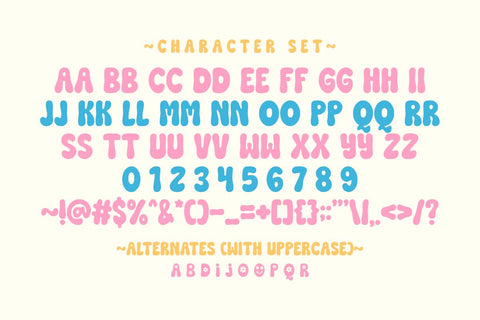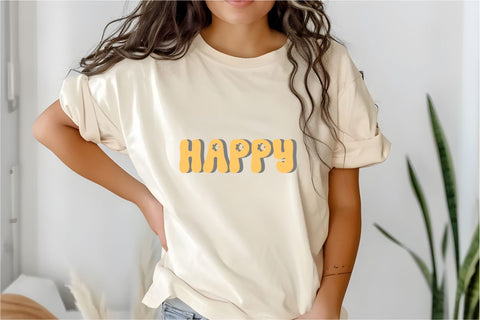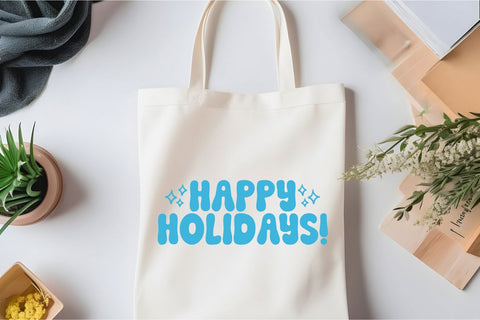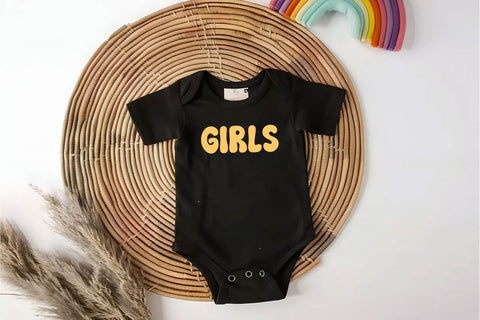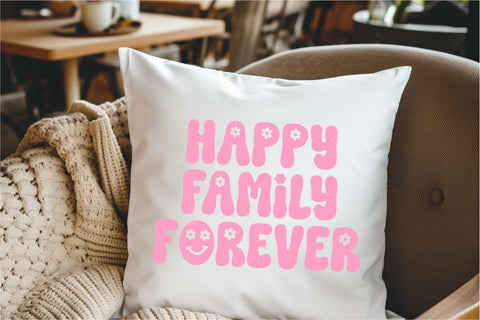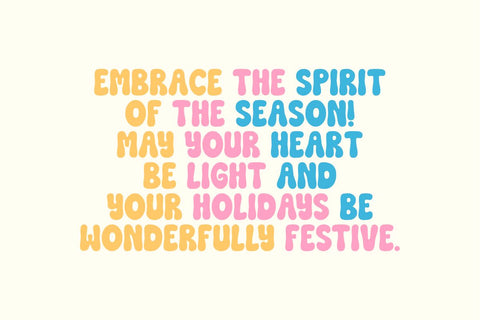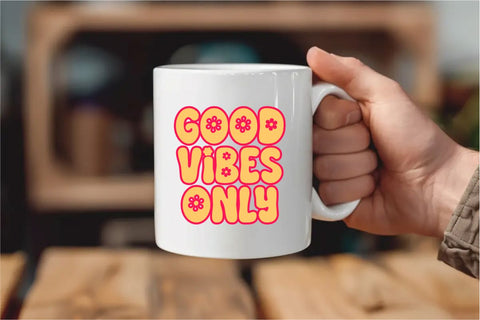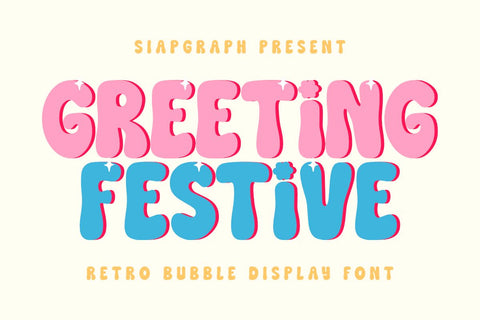
Greeting Festive - Retro Bubble Font
Greeting Festive is a captivating bubble retro display font that bursts with cheerful energy and a delightful vintage charm. Its plump, rounded, and wonderfully soft letterforms evoke a nostalgic feeling of classic holiday cheer, while the playful starburst accents add a touch of sparkle and fun. This font is perfect for infusing a dose of festive joy and whimsical retro style into a wide array of creative projects. Imagine Greeting Festive enhancing vibrant holiday stickers, charming planner elements for seasonal events, eye-catching t-shirt designs for celebrations, sweet product labels for gift items, cheerful invitations for parties, personalized tumblers, and a plethora of other engaging crafts. Its distinctively bubbly and retro style makes it exceptionally well-suited for products targeting end-users who enjoy crafting with tools like Cricut and for sublimation projects, as well as for creating appealing stickers and planner elements with a truly unique and joyful flair. Greeting Festive's unforgettable and lively character will ensure your creations stand out, bringing a big smile and a festive vibe to everyone who sees them.